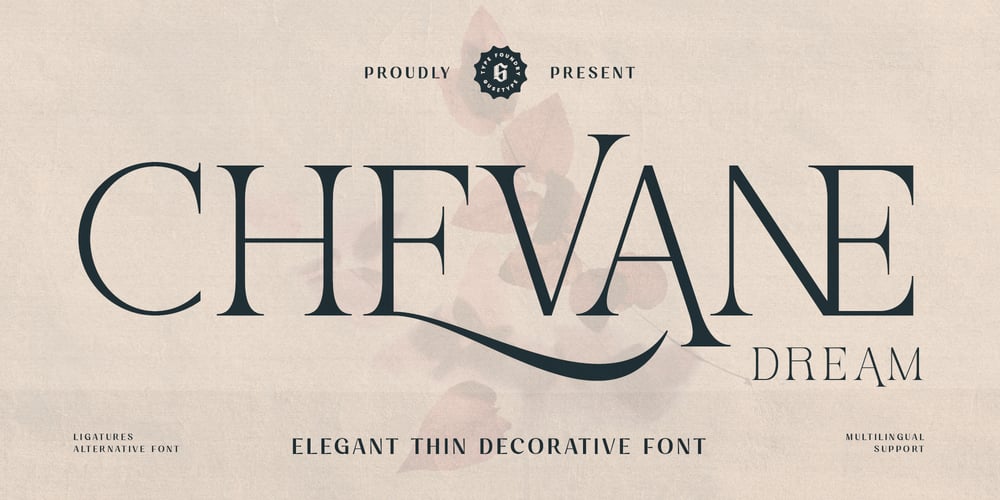
Chevane Dream Font Family was designed by Guntur Septyan and published by GuseType. Chevane Dream contains 1 styles and family package options. Chevane Dream is a decorative serif font, this font is inspired by starlight. The characteristic of this font is its sharpness and light weight, which makes this font look more elegant and luxurious. Chevane Dream can be used for various projects such as branding & identity, posters, magazines, logos, albums and much more. Chevane Dream also has several features including multilingual support glyphs, alternative glyphs and ligatures, this feature can make your writing look more stylish.